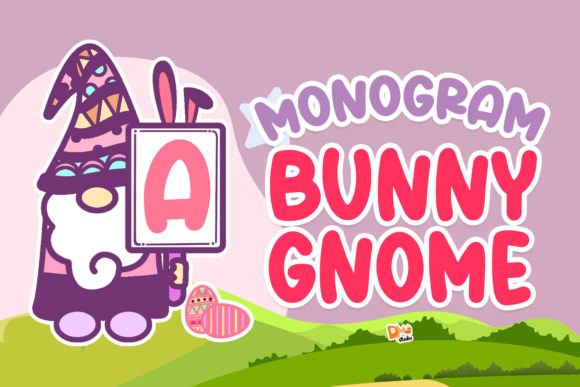
Step into a world of whimsical charm and playful elegance with Monogram Bunny Gnome Font, the captivating decorative font that will ignite your creativity and transform your designs into masterpieces. Created by the talented dmletter31, this font is a delightful fusion of artistic flair and practical versatility, making it the perfect choice for a diverse range of projects.
Visualize your designs adorned with adorable little gnomes, each boasting a unique personality. Monogram Bunny Gnome Font's intricate details and charming characters will add a touch of magic to your invitations, greeting cards, children's books, and digital art. Let your imagination run wild as you craft enchanting scenes, whimsical illustrations, and captivating logos that will leave a lasting impression.
Immerse yourself in the boundless possibilities of Monogram Bunny Gnome Font. Its playful nature lends itself effortlessly to cartoon-inspired designs, adding a touch of lighthearted fun to your animations, comic strips, and social media posts. Unleash your creativity and let your designs take on a life of their own, capturing the hearts of your audience.
With Monogram Bunny Gnome Font, the creative possibilities are endless. Its intricate details and charmingly quirky characters will elevate your designs to new heights, evoking a sense of wonder and delight. Whether you're a seasoned designer or just starting your creative journey, this font will be your trusty companion, adding a spark of magic to every project you touch.
So, why settle for ordinary when you can embrace the extraordinary? Embrace Monogram Bunny Gnome Font today and embark on a creative adventure that will leave you breathless. Let your imagination soar as you create designs that captivate, inspire, and spread joy wherever they go. The world of creativity awaits – dive in and make your mark with Monogram Bunny Gnome Font.